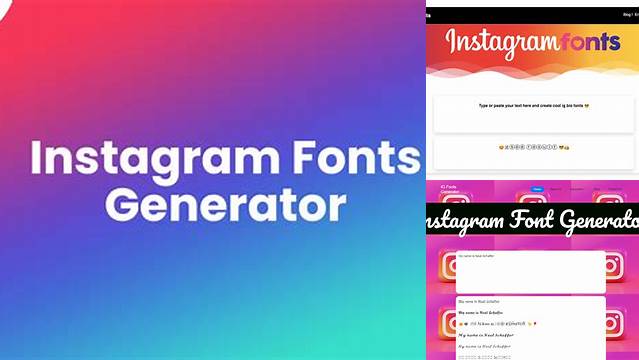
Instagram Fonts Generator With Color: Boost Your Profile
Hey guys! Want to make your Instagram posts and stories pop? You know, stand out from the endless scroll? One of the easiest (and coolest) ways to do that is by using a fancy Instagram fonts generator with color. Forget those boring default fonts – let's dive into a world of stylish text and vibrant hues that'll make your content shine.
What is an Instagram Fonts Generator with Color?
Okay, so what exactly is this magical tool we're talking about? Simply put, an Instagram fonts generator with color allows you to create text in various fonts and colors that you can then copy and paste into your Instagram bio, captions, comments, or stories. Instagram itself has limited font options, which can make your profile look a bit… well, bland. But with a font generator, you can unlock a whole universe of typographic possibilities. We're talking about everything from elegant scripts and bold sans-serifs to quirky handwritten styles and even futuristic fonts. And the best part? You can add a splash of color to match your brand, mood, or the aesthetic of your post. Think vibrant gradients, subtle pastels, or eye-catching neons – the choice is yours!
Why Use a Font Generator? You might be thinking, "Why bother? Does the font really matter?" And the answer is a resounding YES! In the visually driven world of Instagram, your text is just as important as your photos and videos. A unique font can:
- Grab Attention: A striking font will immediately catch the eye of scrollers, making them stop and actually read your content.
- Express Your Brand: Fonts can convey personality and style. Choosing the right font can help you establish a consistent brand identity and make your profile instantly recognizable.
- Highlight Key Information: Use different fonts and colors to emphasize important words, phrases, or calls to action in your captions and stories.
- Add a Touch of Creativity: Let's face it, the default Instagram fonts are a little… predictable. A font generator allows you to inject some fun and creativity into your profile.
- Stand Out From the Crowd: In a sea of similar-looking profiles, a unique font can help you differentiate yourself and make a lasting impression.
The Psychology of Fonts and Colors: Believe it or not, fonts and colors can evoke specific emotions and associations. For example, a bold, blocky font in a bright color might convey a sense of energy and excitement, while a delicate script font in a pastel shade might feel more elegant and romantic. When choosing a font and color for your Instagram content, consider the message you want to convey and the overall tone of your brand. Think about your target audience and what kind of fonts and colors will resonate with them. Do some research on color psychology to understand the emotions associated with different hues. For example, blue often evokes feelings of trust and stability, while yellow is associated with happiness and optimism. By carefully selecting your fonts and colors, you can create a powerful visual impact and connect with your audience on a deeper level.
How to Use an Instagram Fonts Generator with Color: A Step-by-Step Guide
Alright, so you're convinced that a font generator is the way to go. But how do you actually use one? Don't worry, it's super easy! Here's a step-by-step guide:
- Type Your Text: Once you've chosen a generator, simply type the text you want to customize into the input box. This could be your Instagram bio, a caption for a post, or text for a story. Some font generators offer additional features like text styling options (e.g., bold, italics, underline) or the ability to add symbols and emojis. Experiment with different text lengths and formats to see how they look in different fonts and colors. Keep in mind that some fonts may be better suited for shorter text snippets, while others work well for longer paragraphs.
- Choose Your Font: Most generators will display a list of fonts to choose from. Scroll through the options and select the one that best suits your style and message. Many generators allow you to preview the text in each font before you make your final selection. Pay attention to the legibility of the font, especially if you plan to use it for longer text passages. Consider the overall aesthetic of your Instagram profile and choose a font that complements your existing visual branding. You might want to try different fonts for different purposes, such as a bold font for headlines and a more elegant font for captions.
- Select Your Color: This is where the real magic happens! Look for the color selection tool, which may be a color picker, a palette of pre-set colors, or a gradient selector. Choose a color that complements your font and the overall aesthetic of your content. Consider using colors that are consistent with your brand identity. Experiment with different color combinations to see what looks best. Some generators allow you to create custom colors by entering hex codes or RGB values. Think about the emotional impact of different colors and choose hues that align with the message you want to convey.
- Copy and Paste: Once you're happy with your font and color, simply copy the generated text. Most generators will provide a button or link to easily copy the text to your clipboard. Make sure you copy the text correctly, including any formatting or styling. Some generators may offer different copy options, such as copying the text with or without HTML tags. Choose the option that is most suitable for your intended use. If you're copying text for your Instagram bio, you may need to adjust the formatting slightly to fit within the character limit.
Level Up Your Instagram Game Today!
So there you have it – everything you need to know about using an Instagram fonts generator with color to make your content stand out. It's a simple yet effective way to add personality, creativity, and visual appeal to your profile. So go ahead, experiment with different fonts and colors, and see what works best for you. With a little bit of effort, you can transform your Instagram presence and leave a lasting impression on your followers. Happy creating, guys!